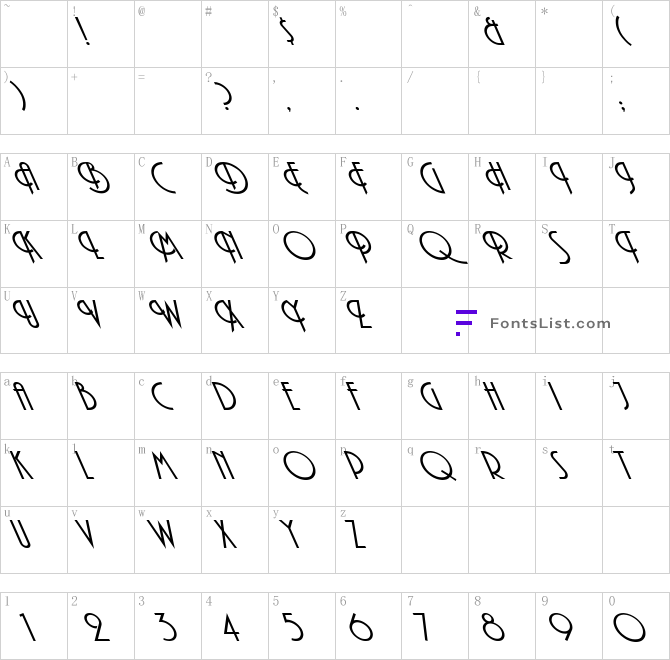
• Font Name:Andes Extreme Lefty
Andes-Extreme-Lefty.ttf is a very beautiful artistic font, Andes-Extreme-Lefty.ttf is widely used in the design and printing of various books and pictures,Andes-Extreme-Lefty.ttf has a strong visual impact,Andes-Extreme-Lefty.ttf is a commonly used font in newspapers, magazines and books, and is used in posters, e-commerce Poster design, store design, logo design, font design and other fields.Andes-Extreme-Lefty.